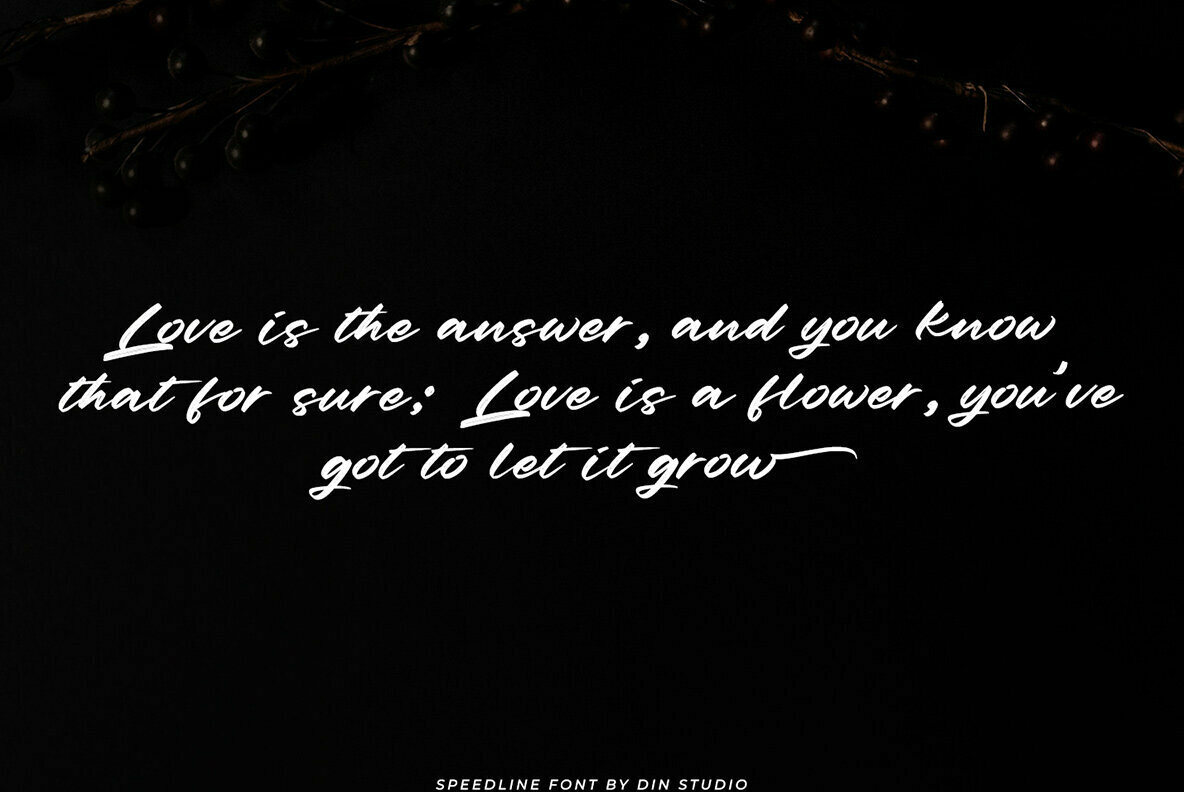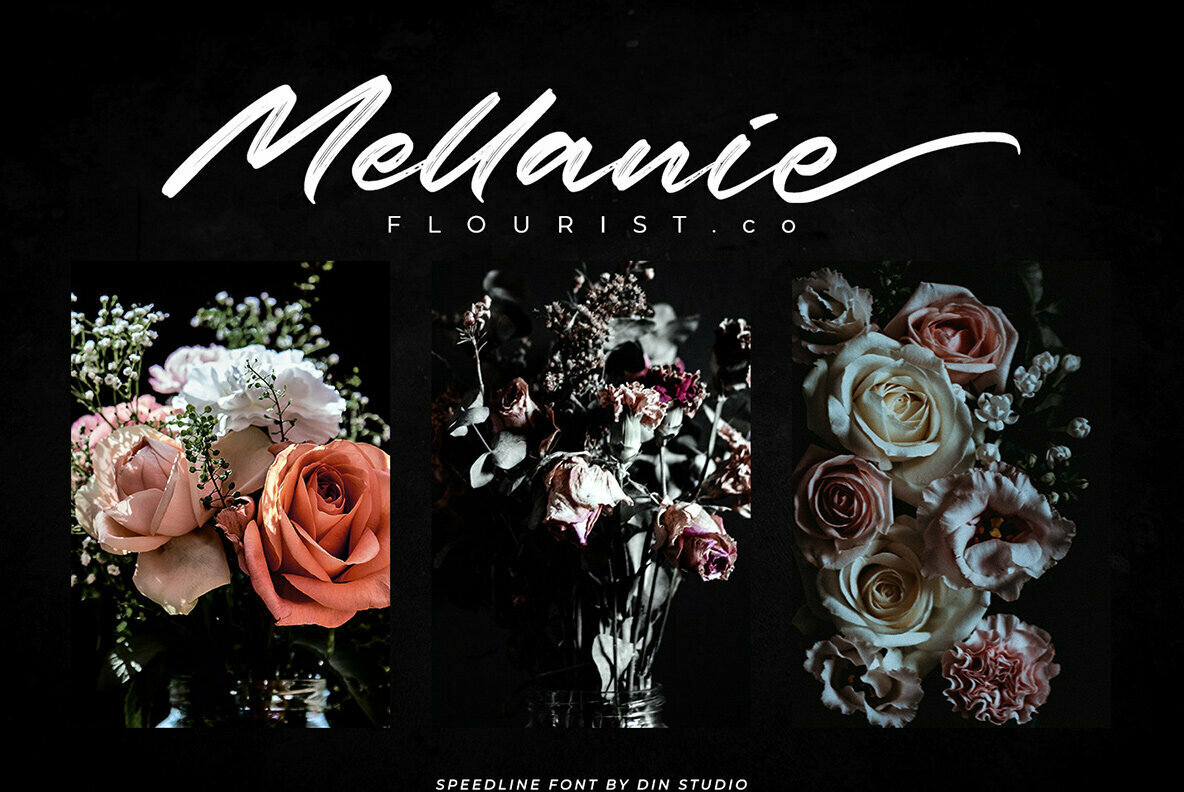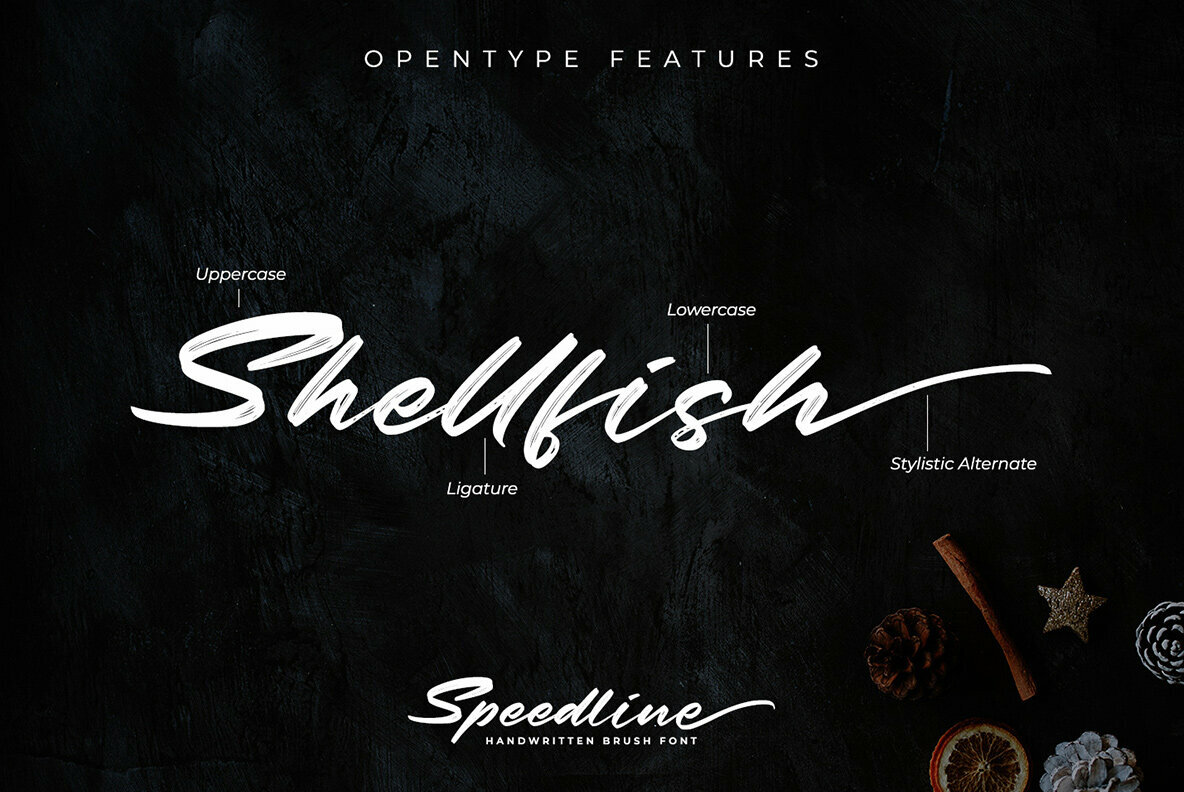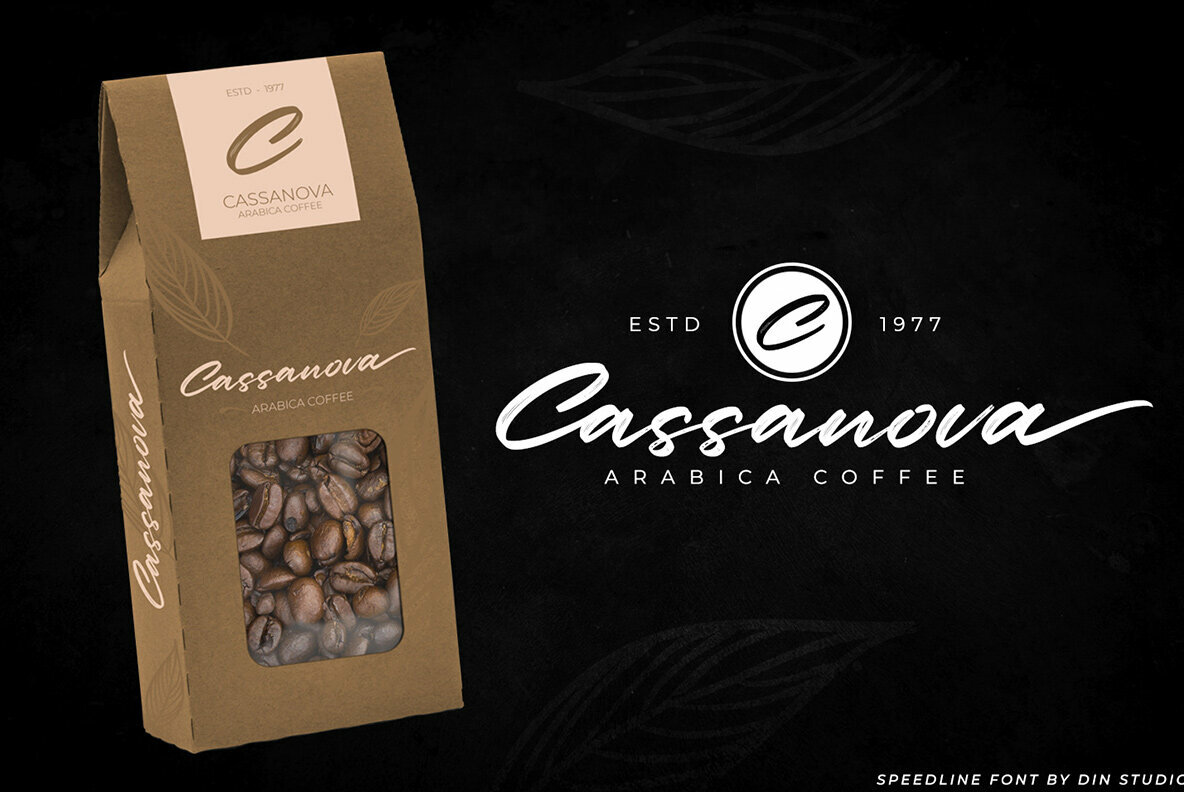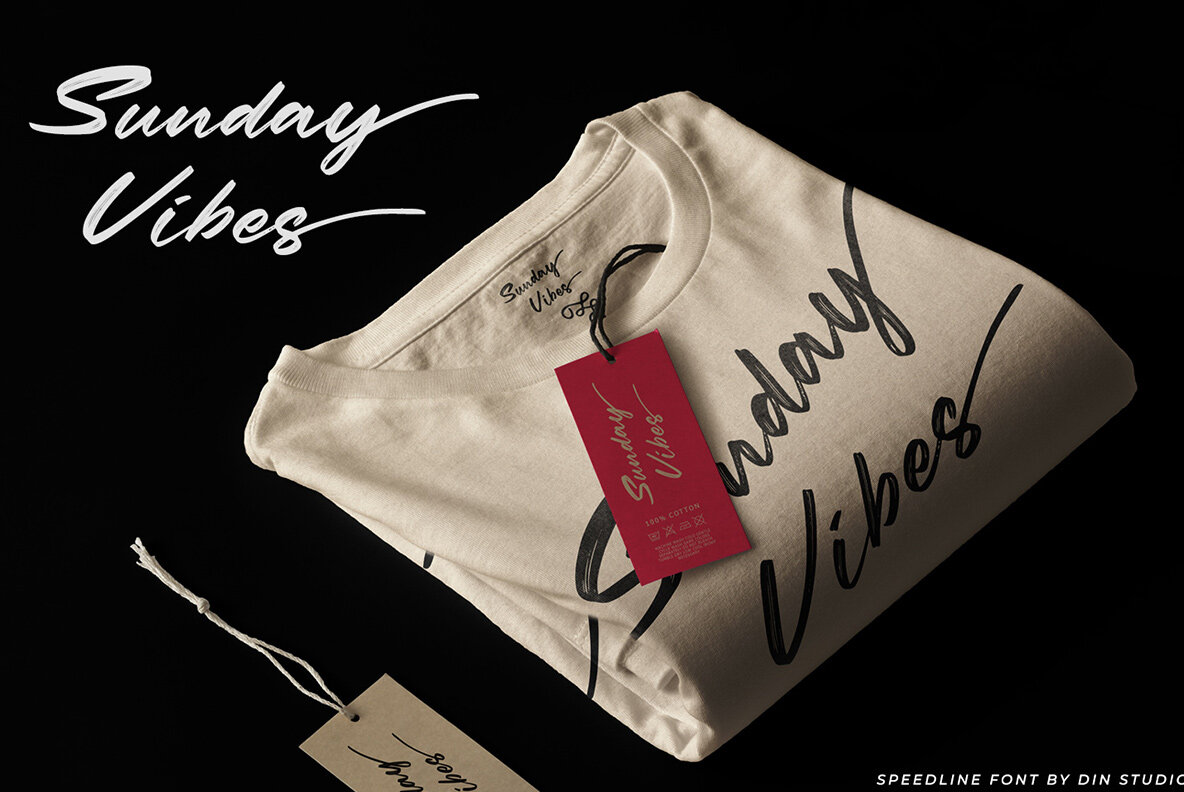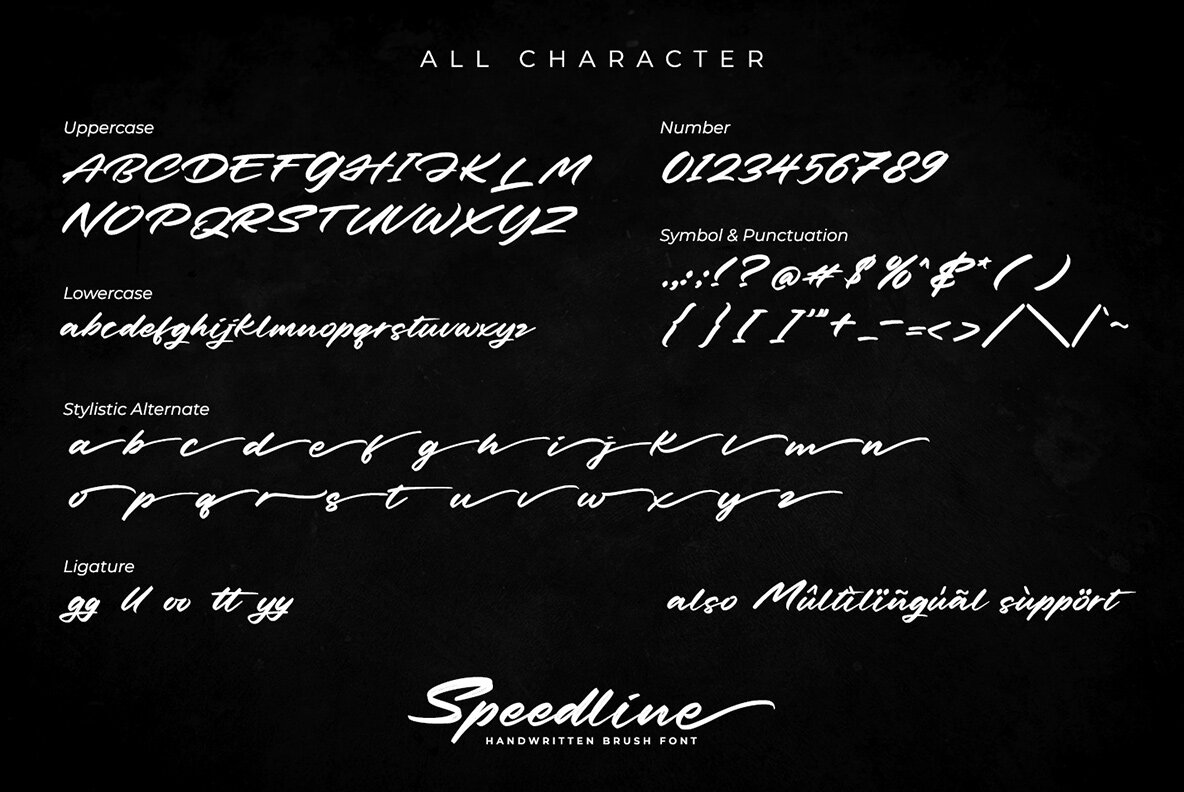
Speedline Font
Speedline
Speedline, crafted by Din Studio, is a refined brush font designed to elevate your creative projects with its sophisticated blend of brush and handwritten styles. Its unique, artistic touches make it an excellent choice for logos, branding, and memorable quotes. Perfect for any professional branding endeavors, this font injects an element of distinct elegance and charm into your work.Speedline: Classy Brush Font for Modern Designs